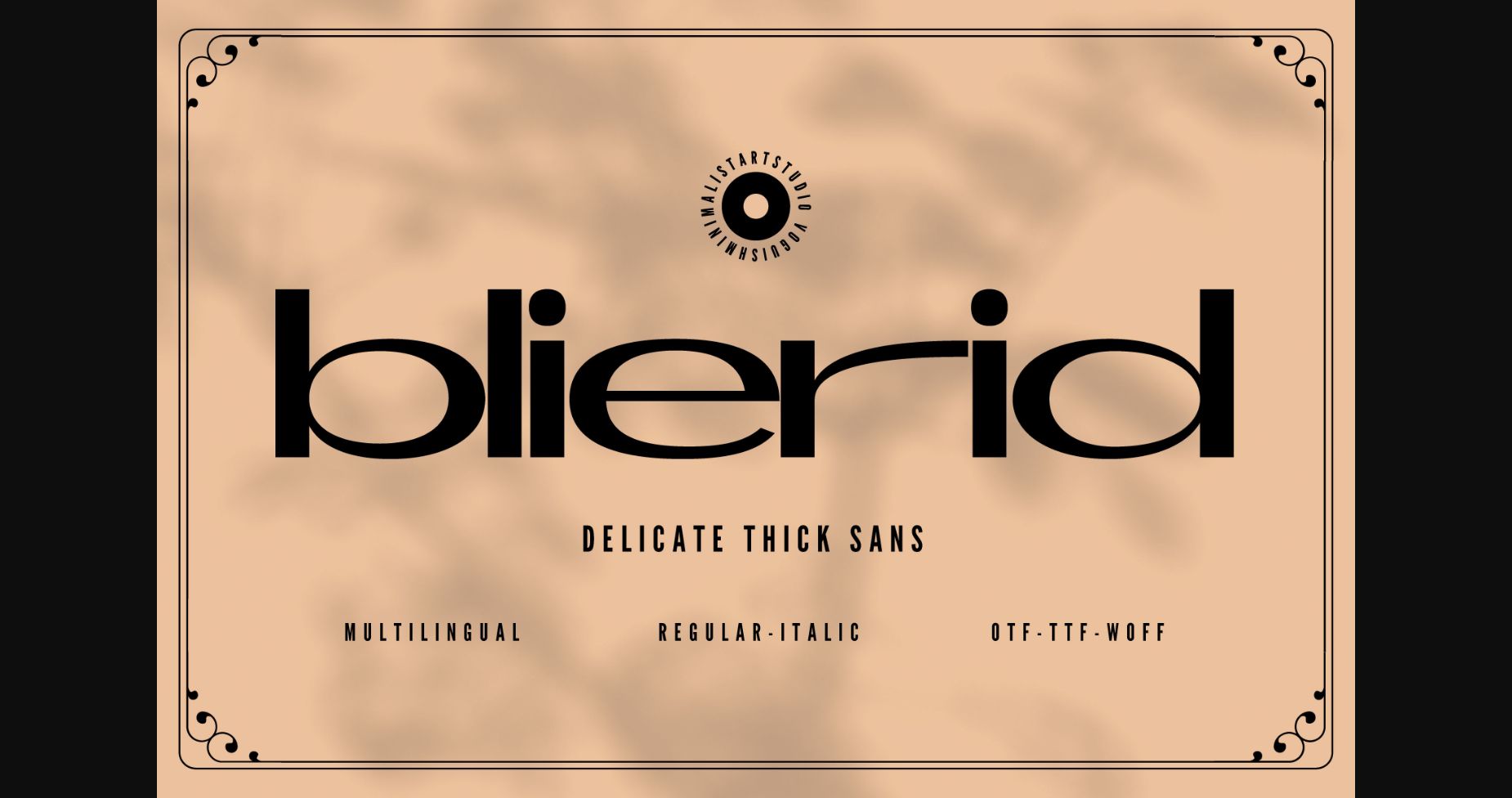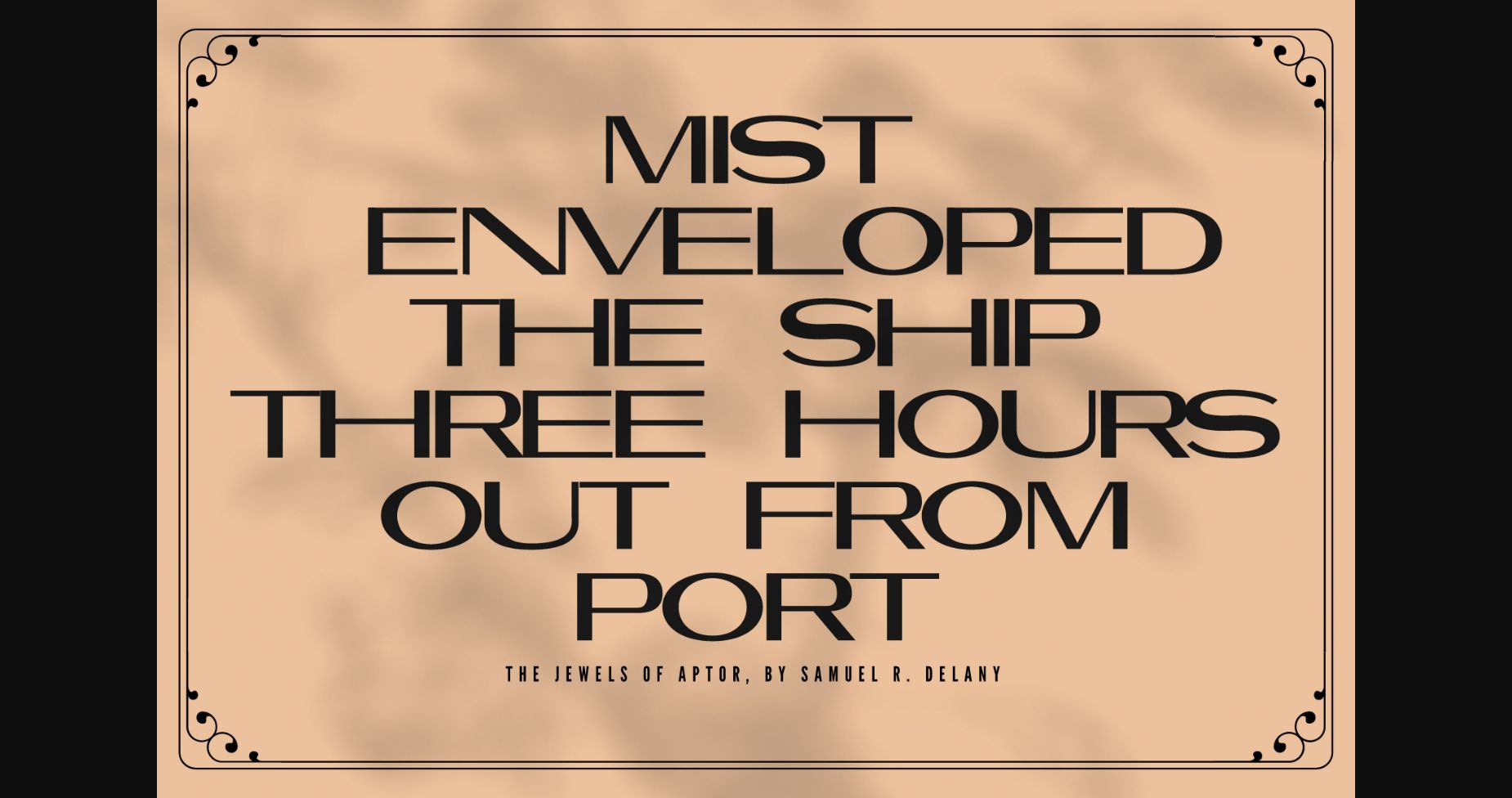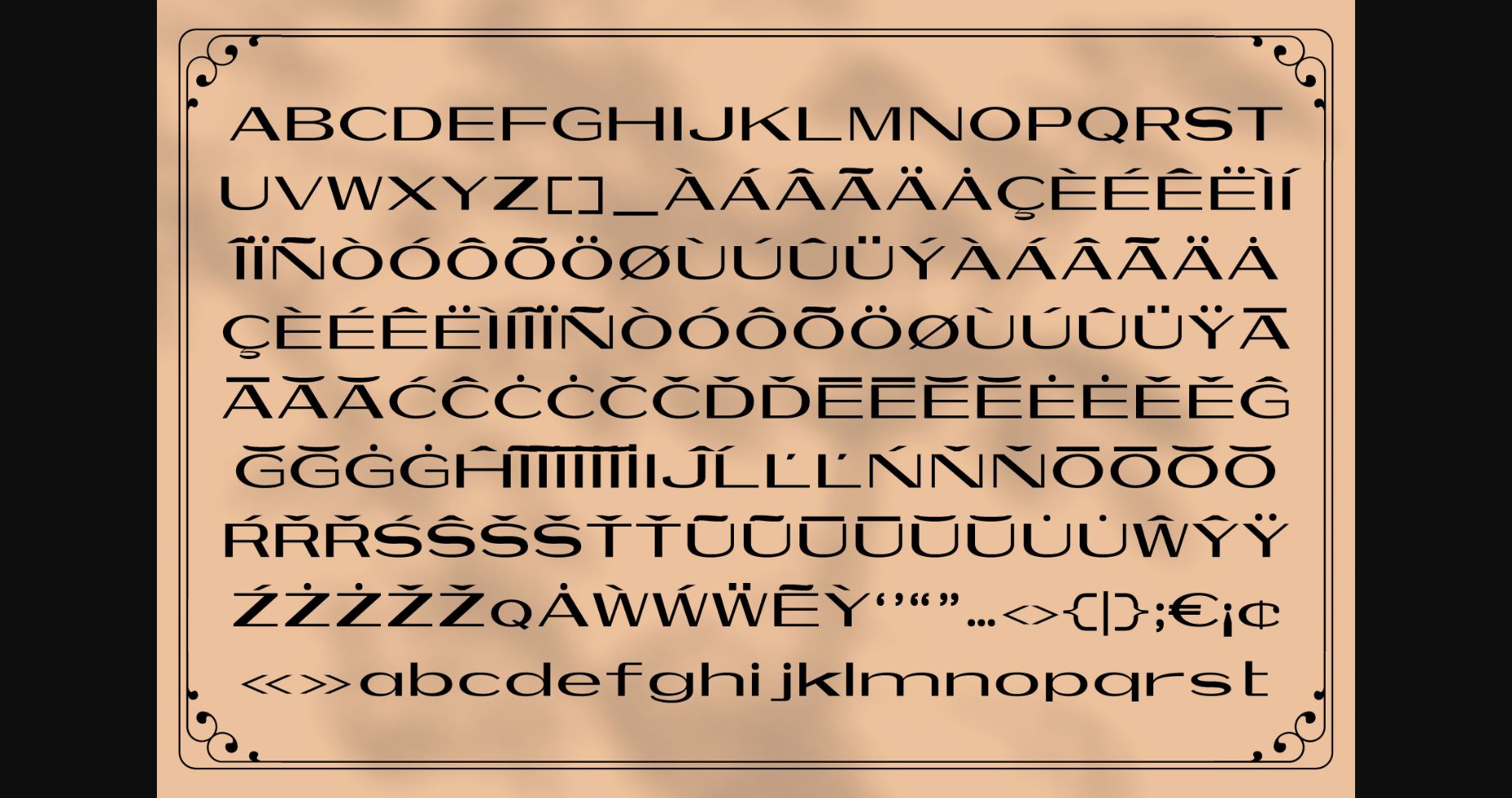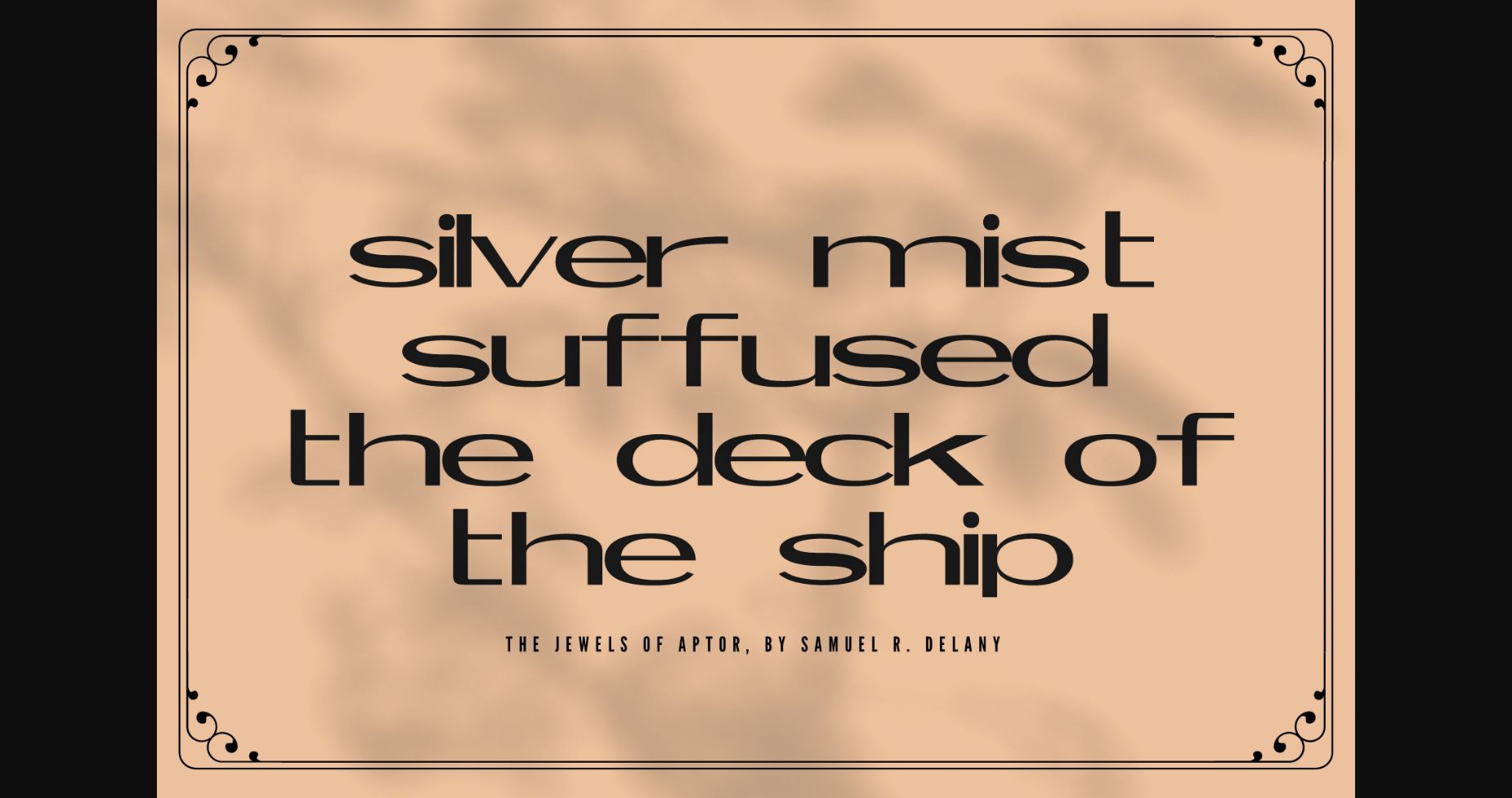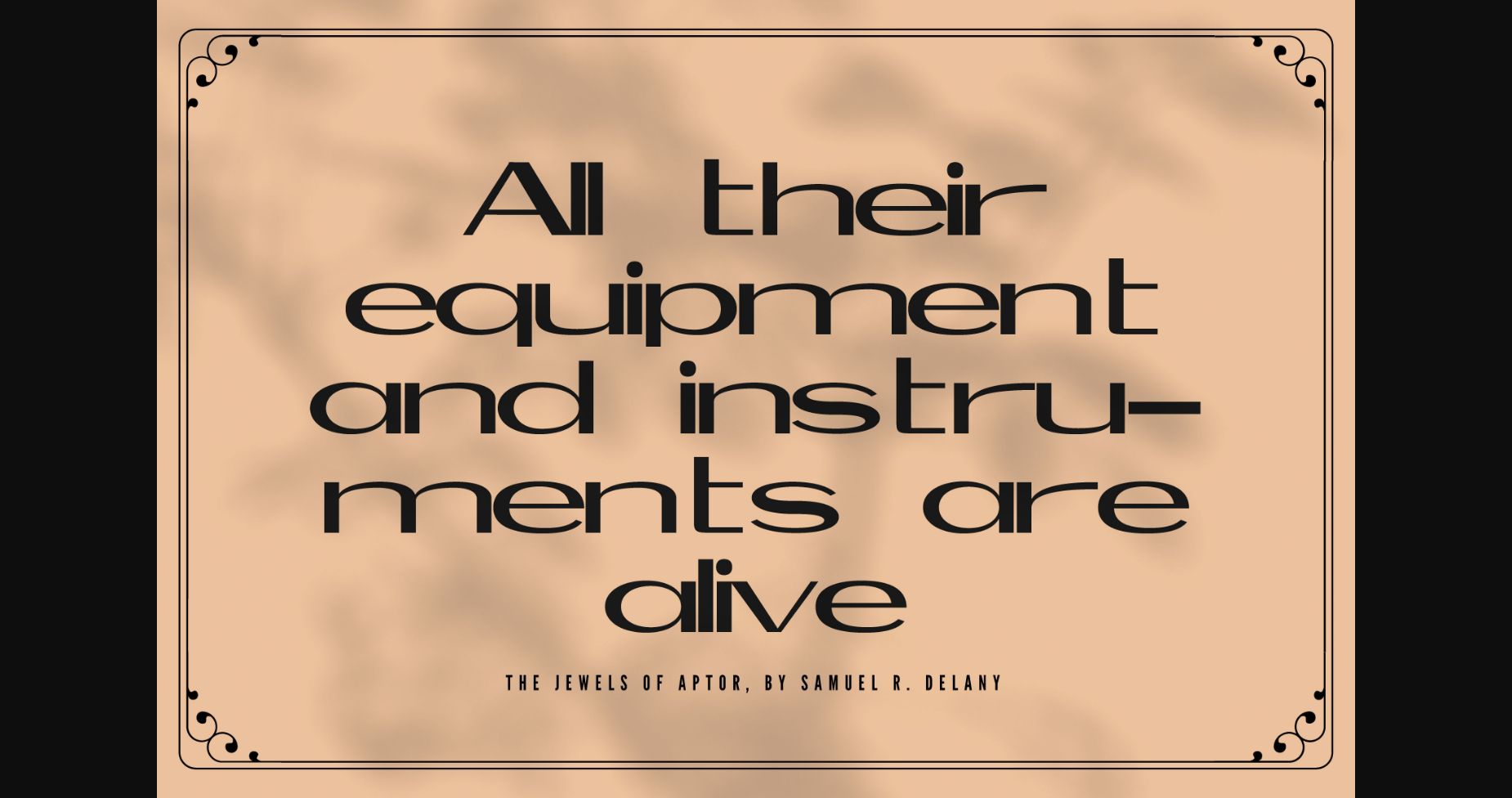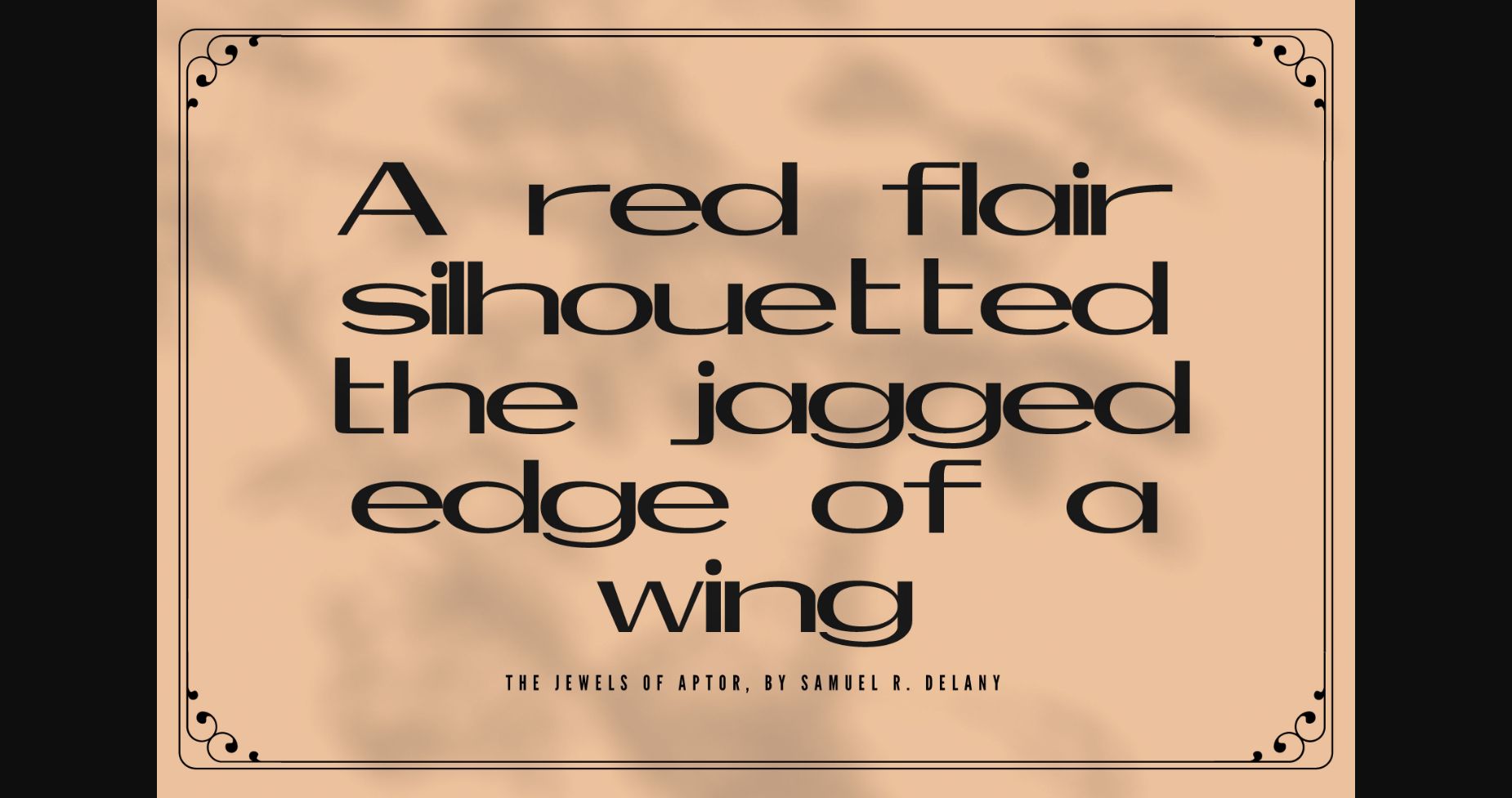
About Blierid Font
Introducing Blierid, the sophisticated, chic sans serif font that will elevate your designs to new heights.
Crafted with precision and style in mind, Blierid is perfect for elegant and high-end designs. Its sleek and minimalistic design makes it an excellent choice for fashion magazines, luxury brands, and high-end product packaging. The font’s clean lines and smooth curves add a touch of sophistication to any project, giving it a modern yet timeless feel.